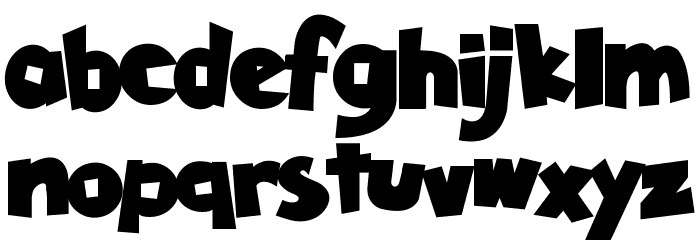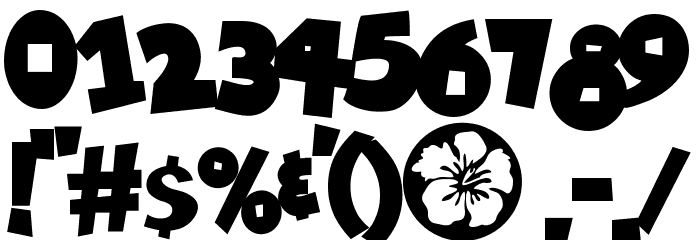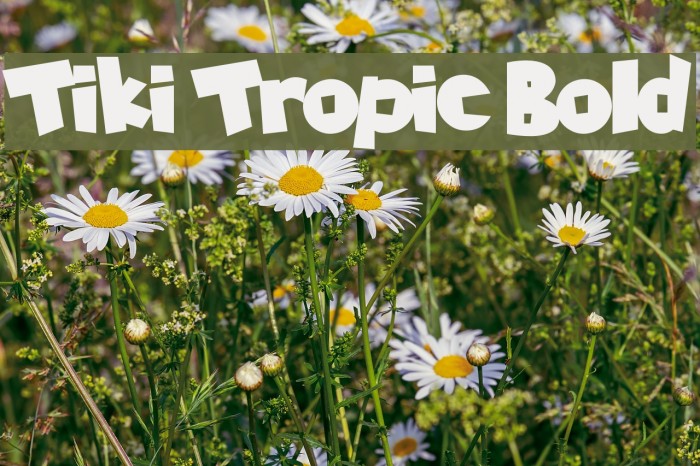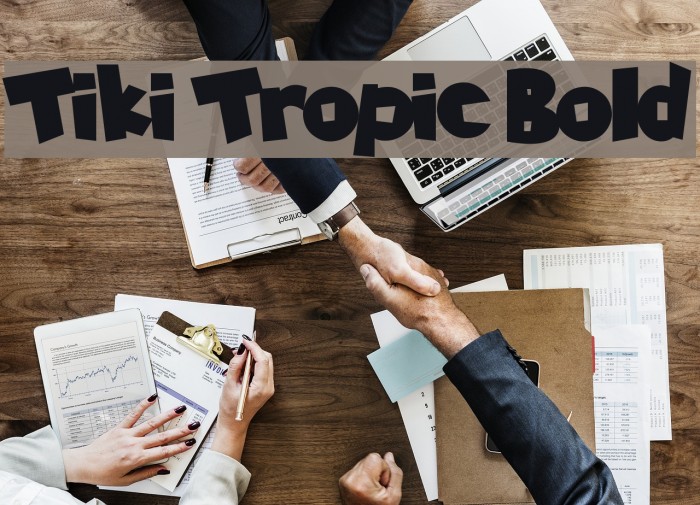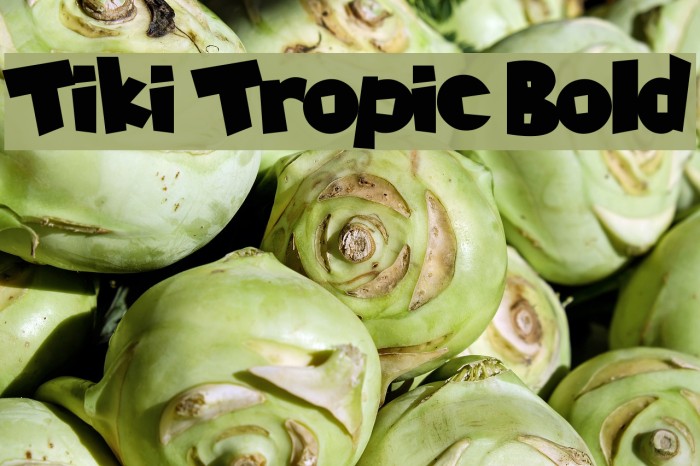
Tiki Tropic Bold Font
This font features a bold and playful design with a tropical flair. The letters are thick and rounded, giving them a friendly and approachable appearance. The uppercase and lowercase letters maintain a consistent style, with exaggerated curves and a slightly uneven baseline that adds to the whimsical feel. The numbers and special characters follow the same design principles, ensuring a cohesive look across all text elements. The font's unique style is reminiscent of hand-drawn lettering, making it ideal for projects that require a fun and informal touch.
A bold, playful font with a tropical, hand-drawn style.
- Proposed Projects: Perfect for beach-themed events, children's books, playful branding, and casual invitations.